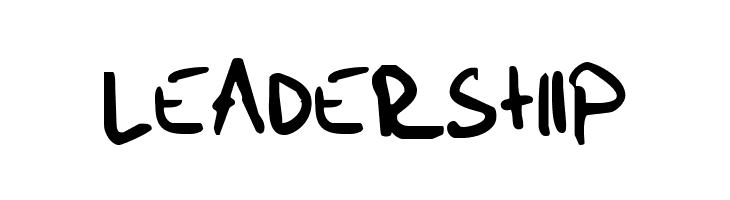
• me handwritin Bold
( Fonts by Niels Bonnevie )
A bold, playful handwritten font with rounded, marker-like strokes.
A bold, outlined mechanical font with a strong, industrial style.
• Mechanical Bold Outline Oblique
A bold, outlined, oblique font with a mechanical and industrial style.
• mechanik Bold
( Fonts by Przemyslaw Hoffer )
A bold, geometric font with a mechanical and industrial aesthetic.
• Mechapunk-BoldItalic